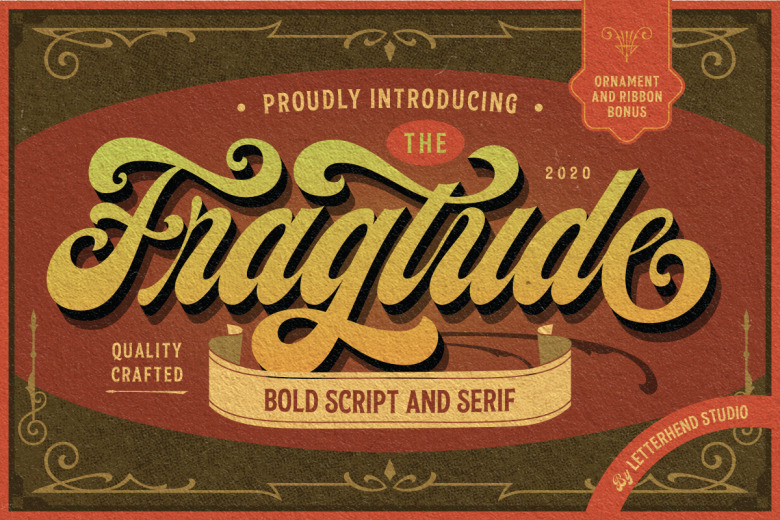
Fragtude Font
Fragtude is a spectacular duo font (serif and script). Incredibly versatile, this font fits a wide pool of designs, elevating them to the highest levels. Add this font to your favorite creative ideas and notice how it makes them come alive!
This typeface is perfectly made to be applied especially in logo, and the other various formal forms such as invitations, labels, logos, magazines, books, greeting / wedding cards, packaging, fashion, make up, stationery, novels, labels or any type of advertising purpose.
Fragtude Script Font